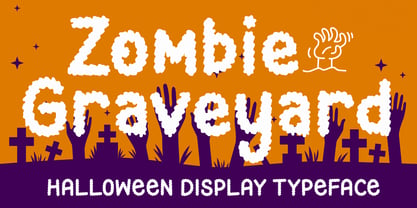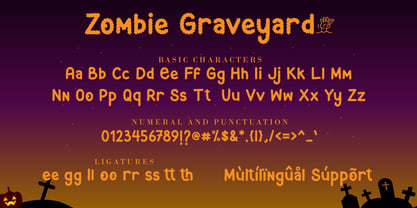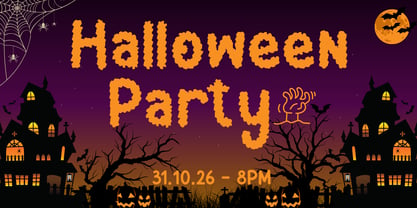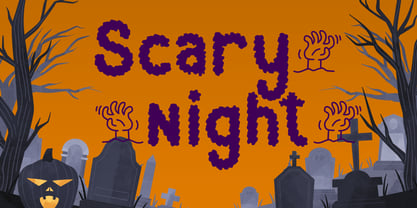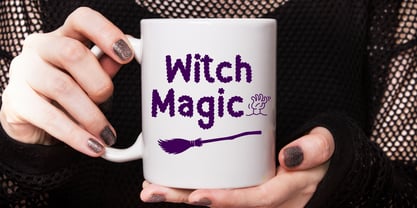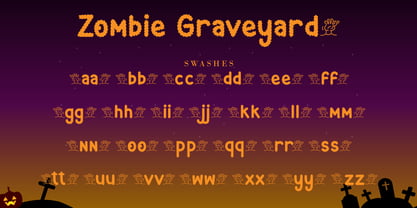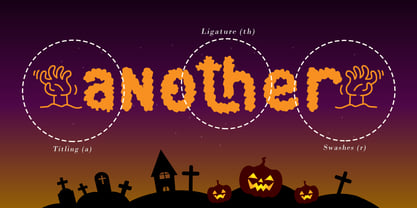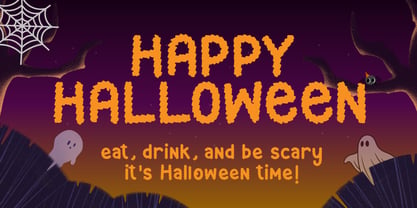
Zombie Graveyard
por AEN Creative Studio
La familia tipográfica Zombie Graveyard fue diseñada por Agung Eko Nugroho y publicada por AEN Creative Studio. Zombie Graveyard contiene 2 estilos y opciones de paquete familiar. Más información sobre esta familia
Bring your Halloween ideas to life with Zombie Graveyard, a bold display font featuring a rough, distressed texture inspired by rising zombies and forgotten graveyards. Designed for eye-catching headlines and seasonal graphics, this font works perfectly for posters, invitations, party decorations, merchandise, logos, stickers, mugs, and digital content.
Diseñadores: Agung Eko Nugroho
Fundición: AEN Creative Studio